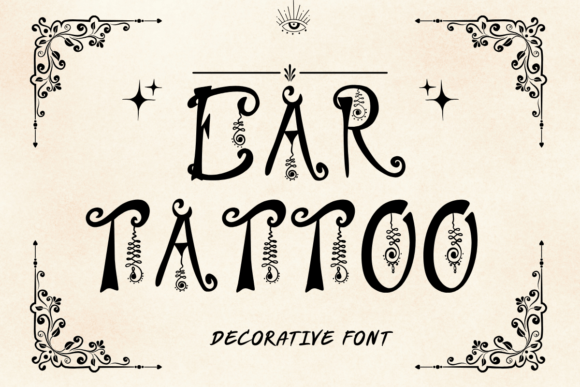
Get Ready to Shine with Ear Tattoo Font
You’ve spent hours brainstorming ideas for your latest design project, and finally, the perfect concept clicks – it’s going to be bold, eye-catching, and full of personality. As you start sketching out the details, you’re looking for the perfect font to match your vision. That’s when you stumble upon something that’s about to take your design to the next level: Ear Tattoo Font.
This stylish font is designed to resemble stylish earrings or small tattoos, adding a trendy touch to any project. Each letter features intricate designs that look like tiny piercings or jewelry, making it a fun and unique choice for designers looking to make a statement. With Ear Tattoo Font, you’ll be able to add a bold and playful twist to your designs, setting them apart from the rest.
- Unique Characteristics: Ear Tattoo Font features intricate and delicate designs, making it perfect for tattoo-inspired artwork, branding, and creative projects.
Ear Tattoo Font Review
Overall, I found the Ear Tattoo Font to be a unique and eye-catching choice for those looking to add a touch of edginess to their designs. Here’s a breakdown of my thoughts:
- Customizable: The font comes in a range of styles, from simple to intricate, making it perfect for designers who want to add a personal touch to their work.
- Highly legible: Despite its bold and edgy appearance, the font remains highly legible, even at smaller sizes.
- Perfect for bold statements: The font is ideal for designs that require a bold, eye-catching statement, such as tattoos, posters, or album covers.
- Limited versatility: While the font is great for bold statements, it may not be the best choice for more subtle or elegant designs.
- Potential for overuse: The font’s edgy appearance may become tiresome if overused, so it’s essential to use it sparingly and thoughtfully.
- Not ideal for body text: Due to its bold and attention-grabbing nature, the font may not be suitable for large blocks of body text.
Overall, I think the Ear Tattoo Font is a great addition to any designer’s toolkit. While it has its limitations, it’s a fantastic choice for designers who want to add a touch of edginess to their work. With careful use and consideration, this font can help create truly memorable designs.
The Ear Tattoo Font is ideal for:
- Tattoo designs and inspiration
- Music and art-related projects
- Edgy and alternative designs
Q: Are there any technical considerations for ear tattoo fonts?
A: When designing ear tattoo fonts, consider the technical limitations of tattoo machines and needles. Avoid using fonts with extremely thin lines or intricate details, as they may not translate well to the tattoo process. Additionally, ensure that the font is scalable and can be easily read in different sizes and orientations.